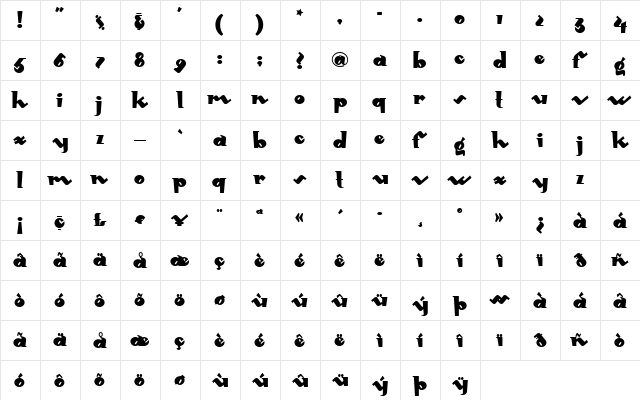
MondoRedondo Regular
Design Context for MondoRedondo Typeface
MondoRedondo is a composed and adaptable typeface that performs quietly and consistently across a wide range of design contexts.